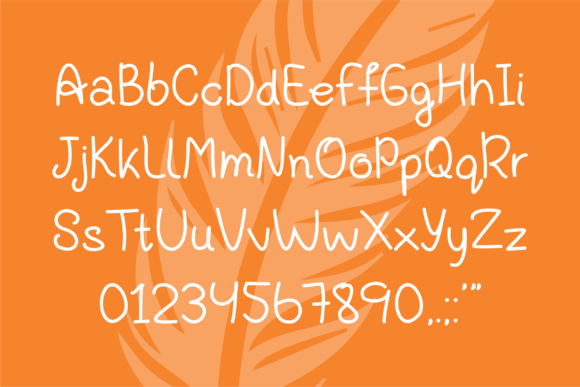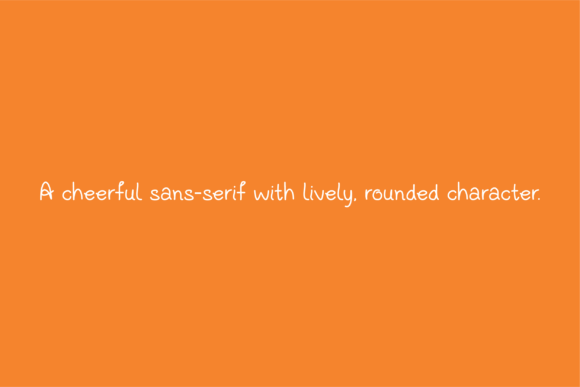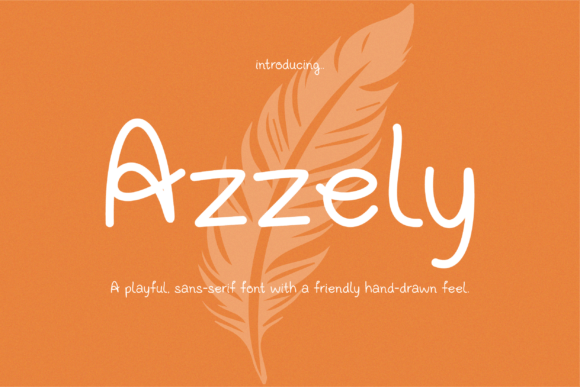
Introducing Azzely Font: The Spirited and Energetic Choice for Your Design Needs
Are you on the hunt for a font that exudes a hand-drawn, congenial charisma? Look no further than Azzely, a spirited and energetic font that’s perfect for a myriad of design projects. With its delicate curves and subtly irregular strokes, Azzely lends a playful vibe to any design work, instantly infusing it with an inviting and engaging allure.
The Perfect Choice for a Variety of Designs
Azzely is the ultimate choice for designers and crafters who want to add a touch of personality to their work. Whether you’re creating logos and branding, social media content, children’s projects, posters, packaging, stickers, or dynamic display typography, Azzely is the perfect fit. Its versatility and legibility make it an excellent choice for a wide range of applications, from educational materials to organic food packaging and eco-friendly branding.
A Harmonious Balance of Merriment and Readability
What sets Azzely apart from other fonts is its harmonious balance between merriment and readability. This font is designed to convey a sense of playfulness and friendliness, making it ideal for projects that require a contemporary, casual, and amiable aesthetic. Azzely feels like a note written by a friend, making it the perfect choice for brands that want to communicate honesty, transparency, and a down-to-earth personality.
Perfect for “Playful” Professional Use
Azzely is not just a font for personal projects; it’s also perfect for “playful” professional use. Its high legibility makes it an excellent choice for long-form text in children’s books, informative infographics, and educational materials. Additionally, Azzely excels in organic food packaging, eco-friendly branding, and other applications where a friendly and approachable tone is desired.
Key Features of Azzely Font
- Hand-drawn, congenial charisma
- Delicate curves and subtly irregular strokes
- Playful vibe that’s perfect for a variety of designs
- High legibility for long-form text
- Perfect for logos, branding, social media content, and more
- Ideal for educational materials, organic food packaging, and eco-friendly branding
Why Choose Azzely Font?
So, why choose Azzely font for your next design project? Here are just a few reasons:
- Unique Personality: Azzely has a unique personality that’s hard to find in other fonts. Its hand-drawn, congenial charisma sets it apart from more traditional fonts.
- Versatility: Azzely is incredibly versatile, making it perfect for a wide range of design applications.
- Legibility: Despite its playful vibe, Azzely is highly legible, making it perfect for long-form text.
- Friendliness: Azzely feels like a note written by a friend, making it perfect for brands that want to communicate honesty and transparency.
| Author | Uzairr |
In conclusion, Azzely font is a spirited and energetic choice for designers and crafters who want to add a touch of personality to their work. With its delicate curves, subtly irregular strokes, and harmonious balance of merriment and readability, Azzely is perfect for a wide range of design applications. Whether you’re creating logos, branding, social media content, or educational materials, Azzely is the perfect choice. So why not give Azzely a try and see how it can elevate your design work?